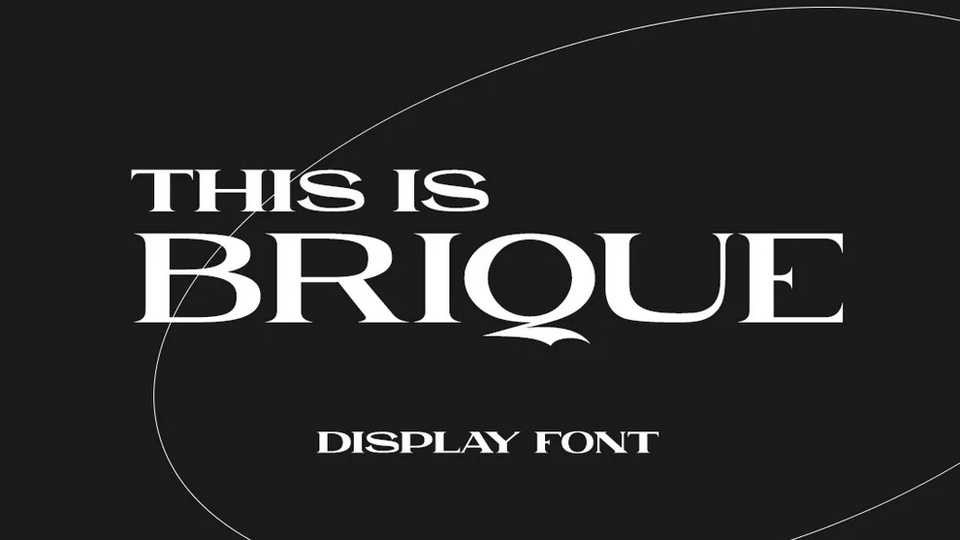
Download Brique font, an elegant serif typeface with strong and monumental look. Brique font is perfect for headlines, logos, posters, short texts, editorial use.
Designer: Henta Zakharia